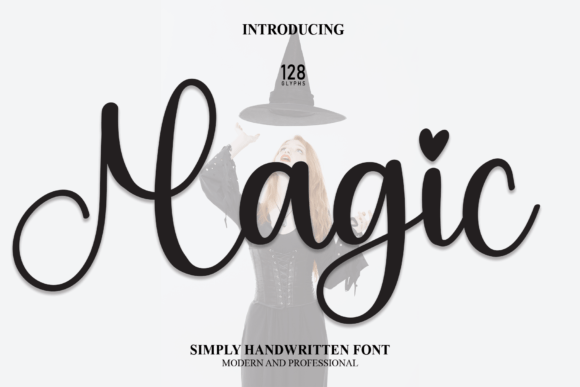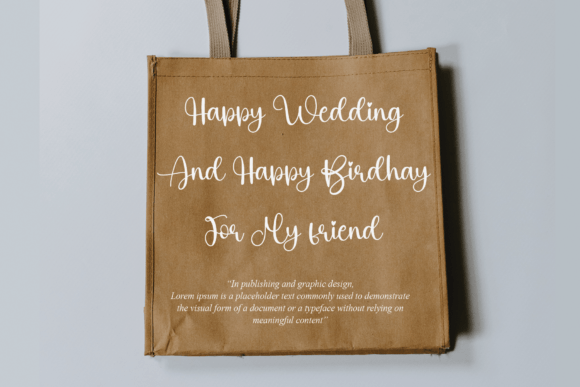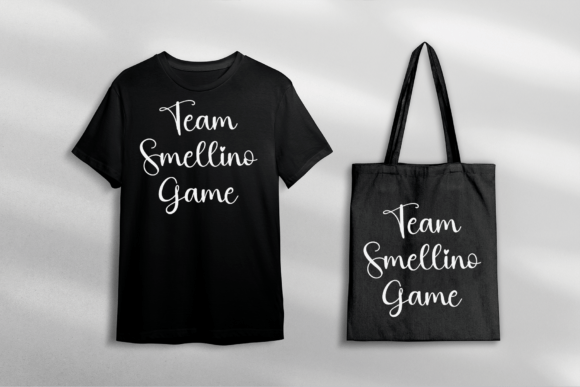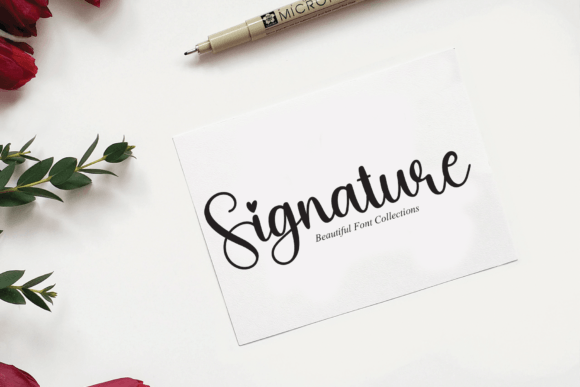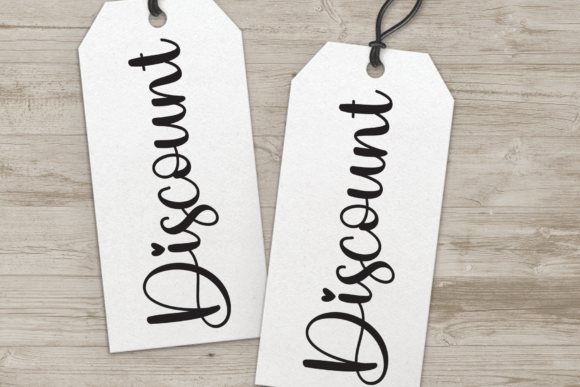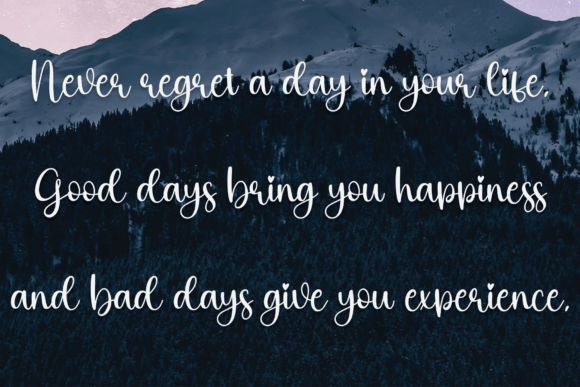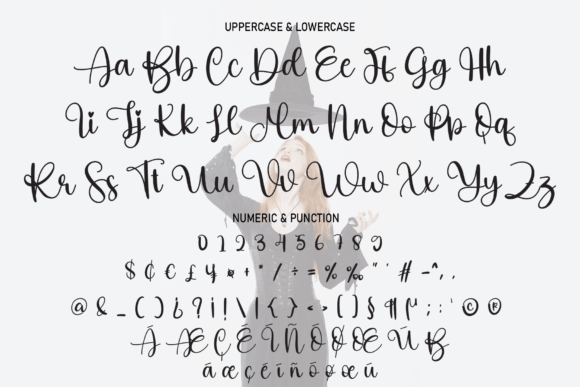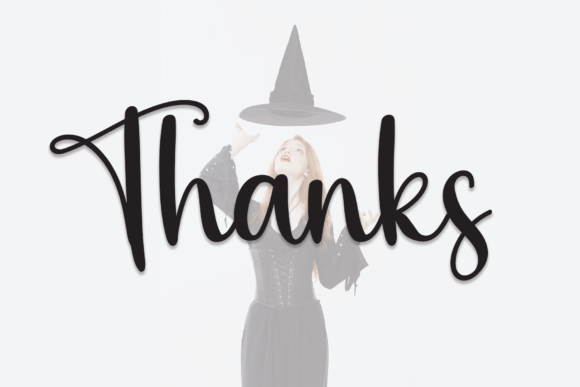
Magic Font
Taking romantic to a whole new level is a font with hearts for dots—you can find them on characters like “i” and “j”. Suitable for a wide variety of designs due to its neat and simple style, this font has the potential to become your favorite go-to font, no matter the occasion!